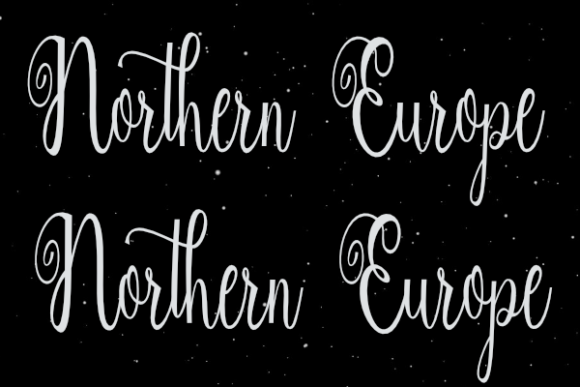
Northern Europe Font
db-ku.com - Script & Handwritten -- Northern Europe is the best choice for creating eye catching logos, branding and quotes. Every letter has a unique and beautiful touch, which will make your design come alive! This font is PUA encoded which means you can access all of the glyphs and swashes with ease!